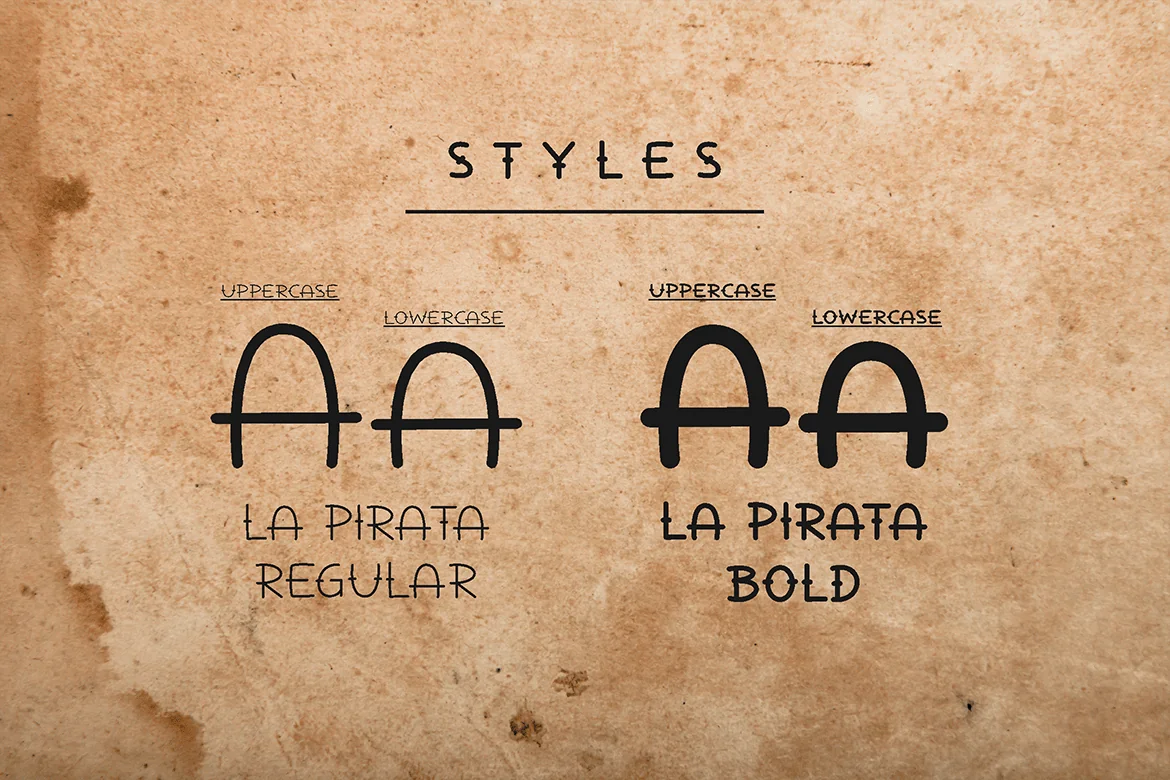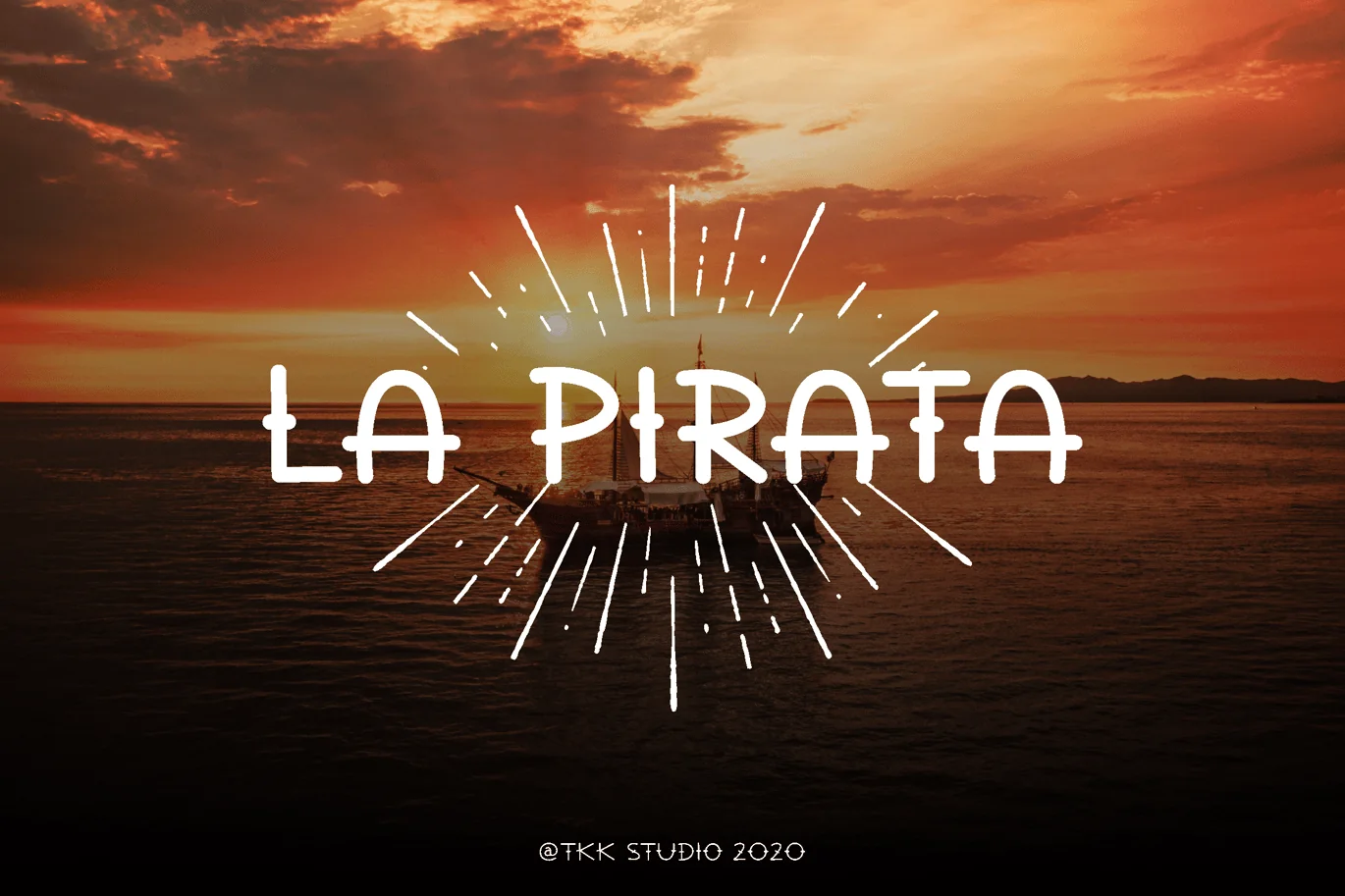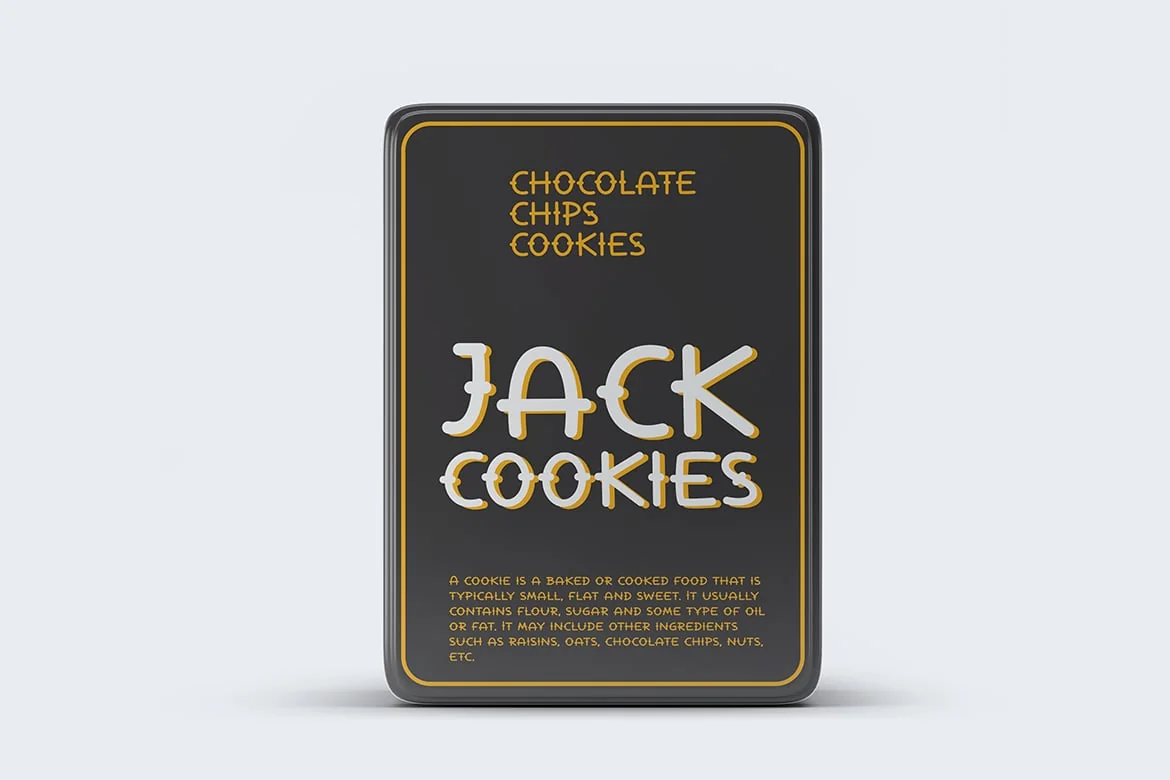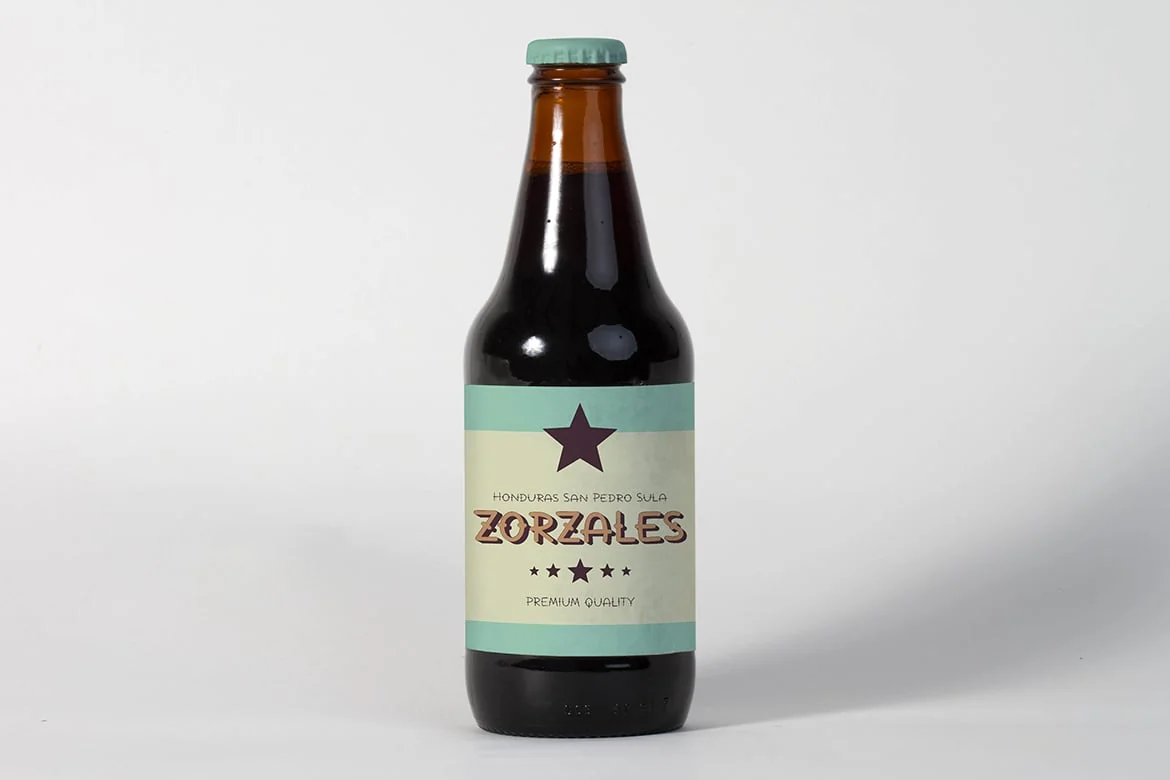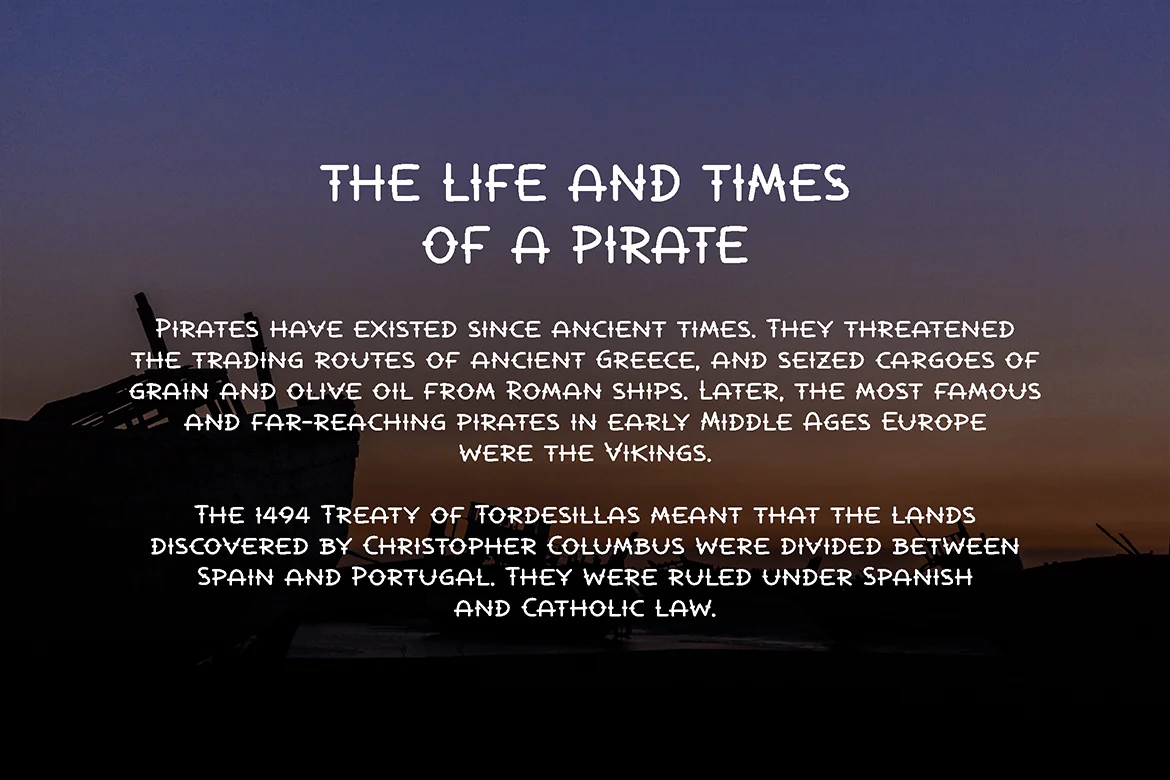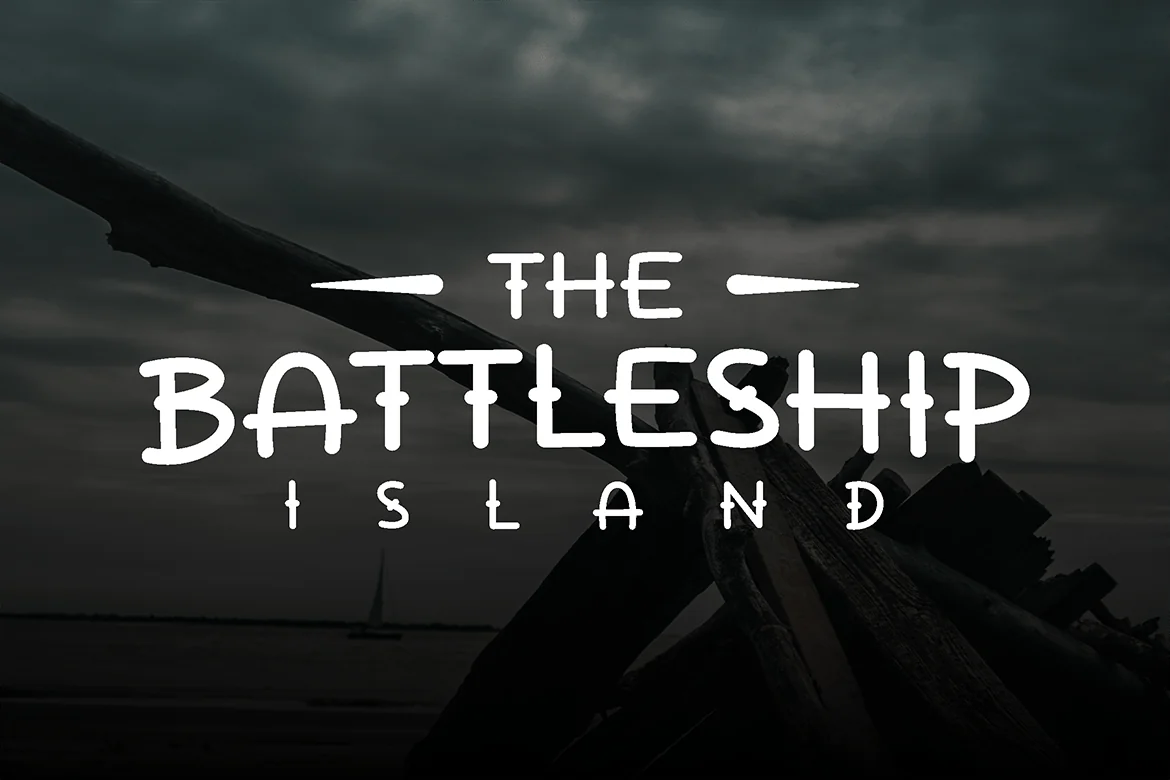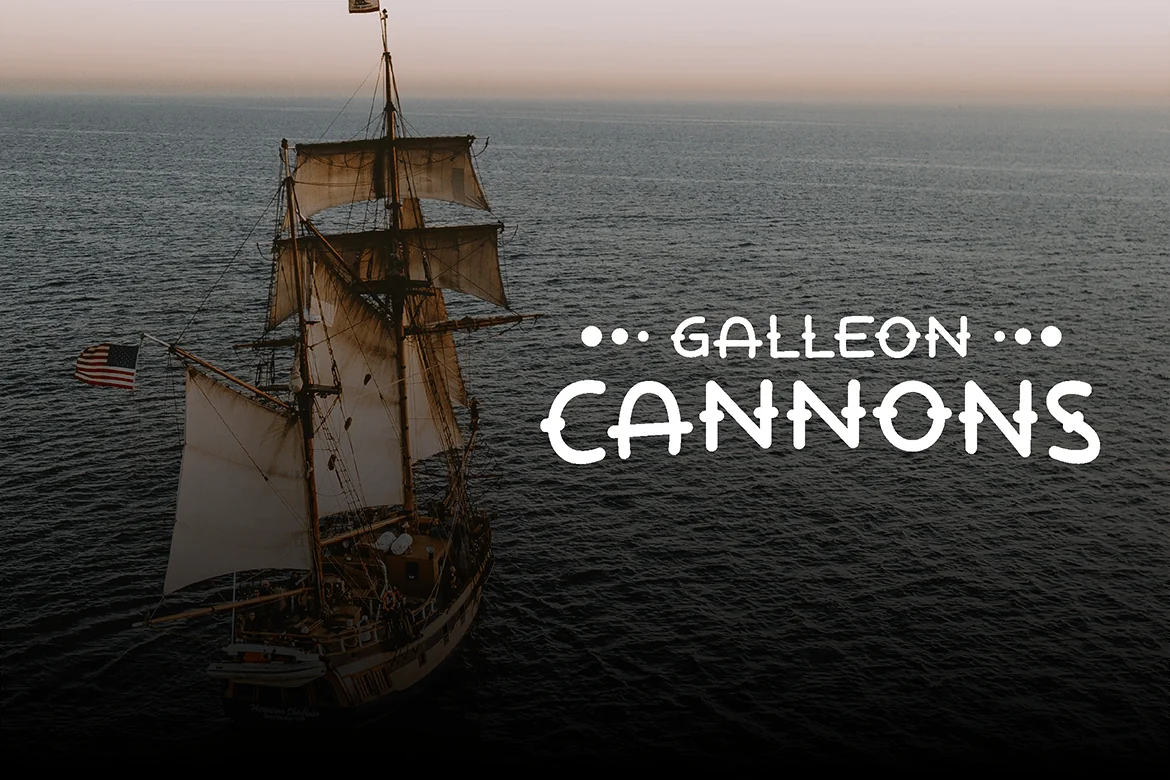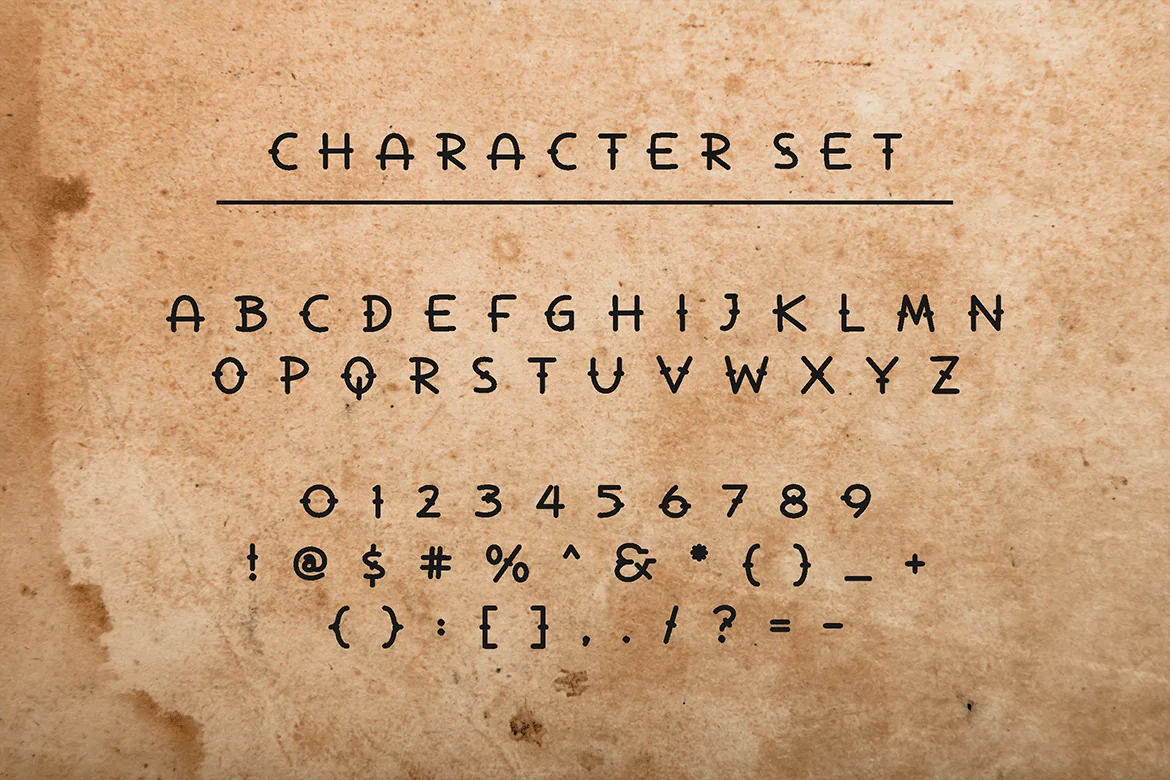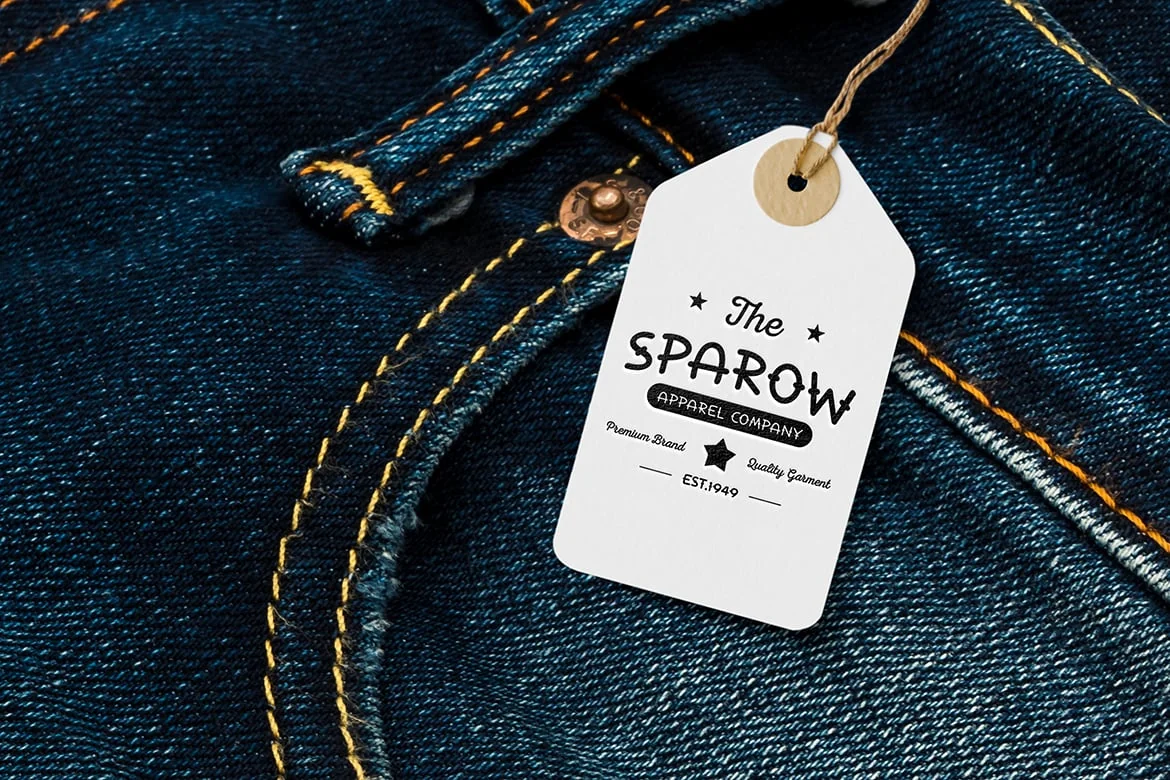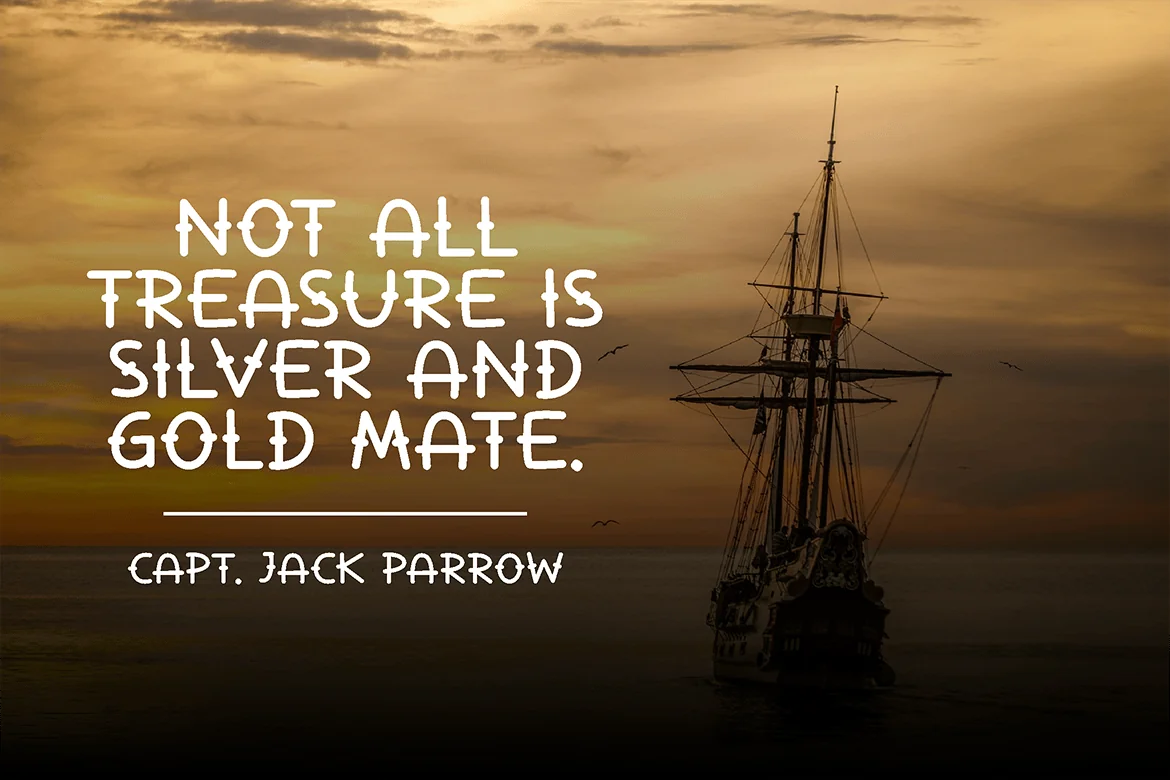
La Pirata – Vintage Tattoo Font
An all caps with different height between uppercase and lowercase, with adventurous spirit of a pirate.
The lowercase will give you an enpanded version of the font. It’s like a stone for a two ships.
Suit perfectly for Online Games, poster, movie title, fast food menu, magazine, and so on…